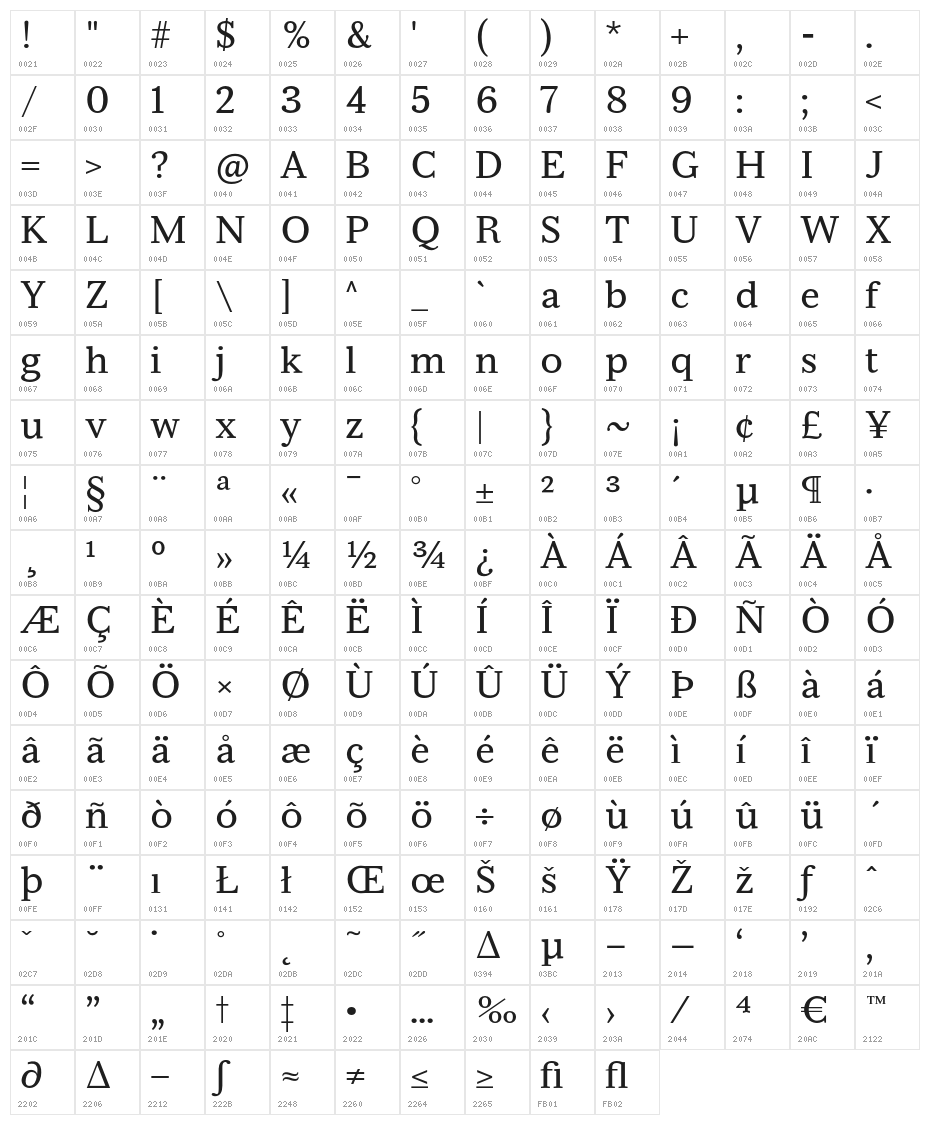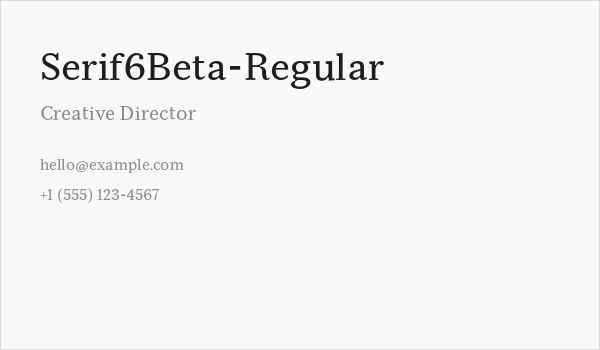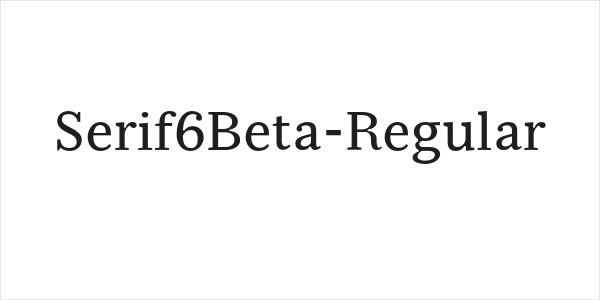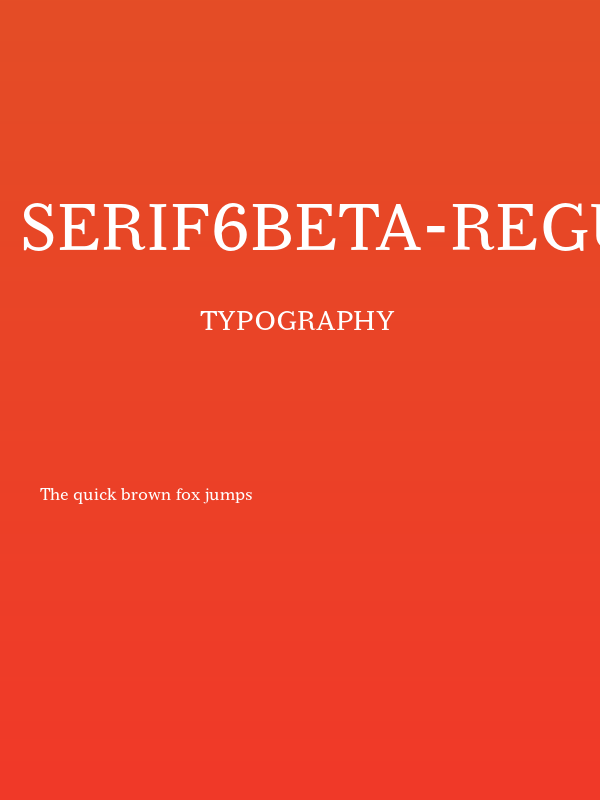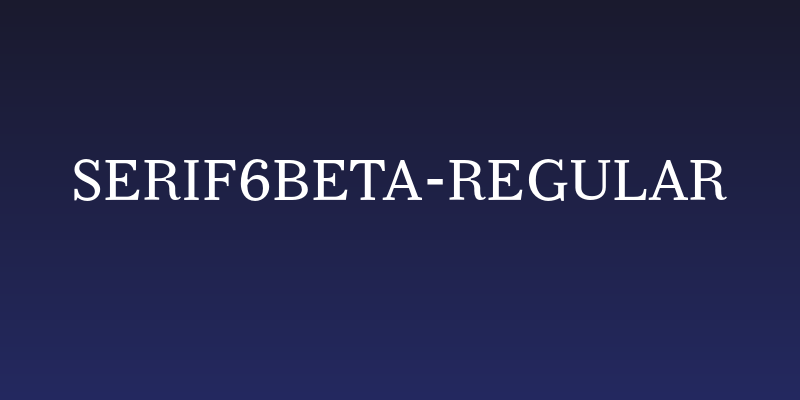
Serif6Beta-Regular Font
This font exhibits a classic serif style with distinct, elegant strokes and a traditional appearance. The serifs are pronounced, providing a sense of formality and readability. The uppercase letters are well-proportioned, while the lowercase letters maintain a consistent x-height, ensuring clarity. The numerals are clear and balanced, making them suitable for both text and display purposes. Special characters are crafted with precision, adding to the font's versatility. Overall, this font combines timeless elegance with modern functionality, making it ideal for a variety of applications.
Overall StyleClassic
Proposed ProjectsIdeal for book typesetting, formal invitations, editorial design, and branding projects requiring a touch of elegance.